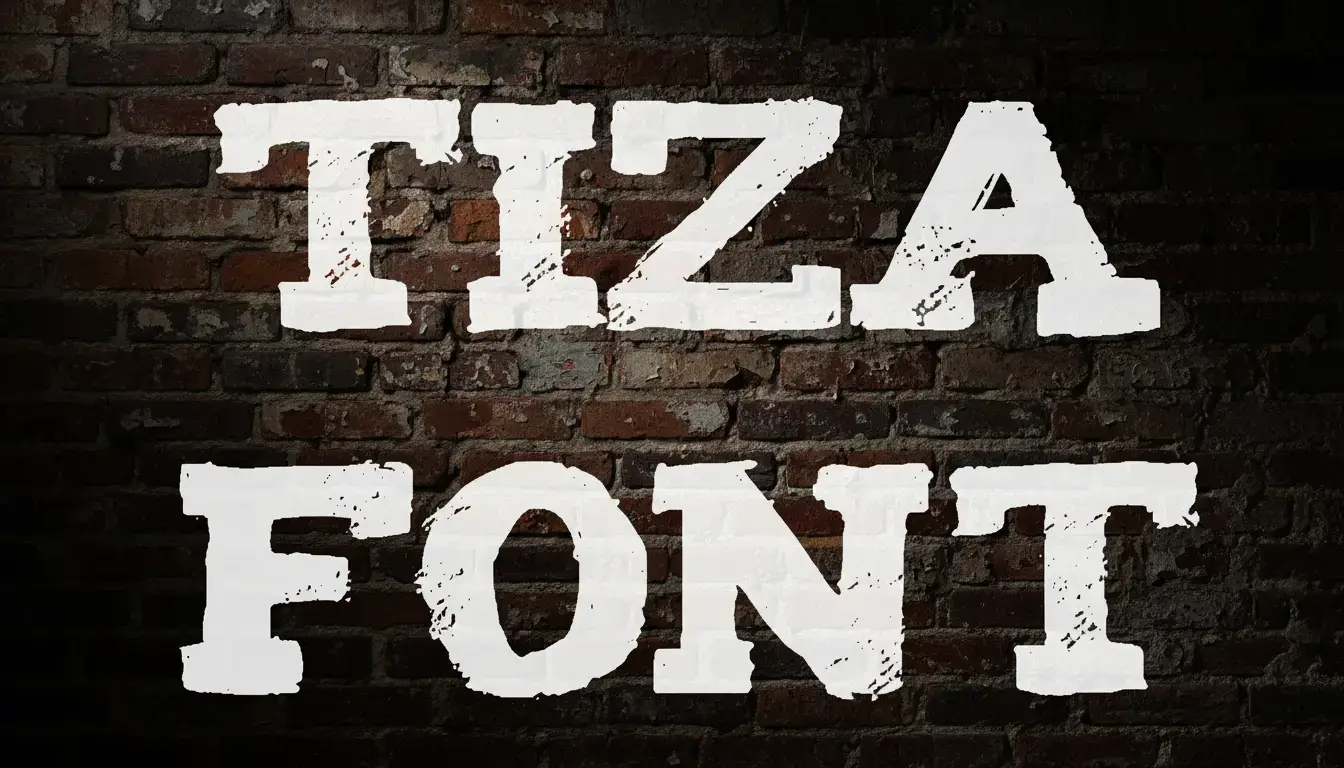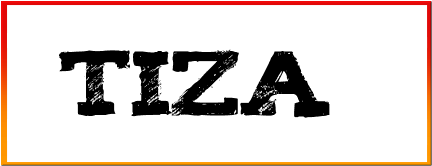
Tiza Font
Tiza
Tiza is a fancy font designed by Pablo Caro. It's a decorative display font with plenty of personality, made to grab attention. It's a free download, and you can try it with your own text in the preview above first.
Tiza Font Details
What You Can Type With Tiza
You get every letter from A to Z in both cases and all the numbers from 0 to 9, which means Tiza can handle full sentences, dates and prices. Common punctuation such as &, !, ? and @ is included as well. It also has the accented letters you need for Spanish, French, Portuguese and Italian.
Where Tiza Works Best
Think of Tiza for posters, logos and eye-catching headlines. Use it for one standout word or headline and let simpler fonts handle the rest.
Does Tiza support accented letters?
Yes. Tiza includes the accented letters needed for Spanish, French, Portuguese and Italian, so it works for more than just English.